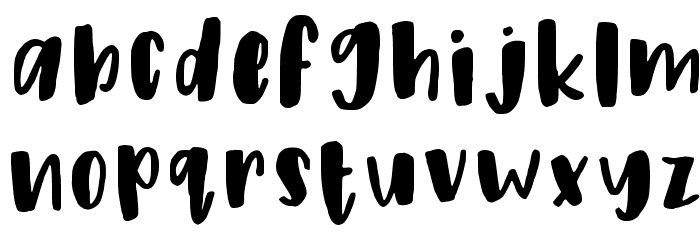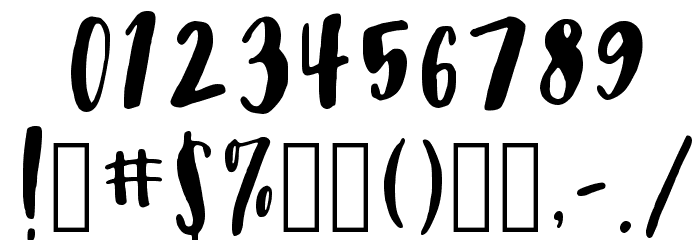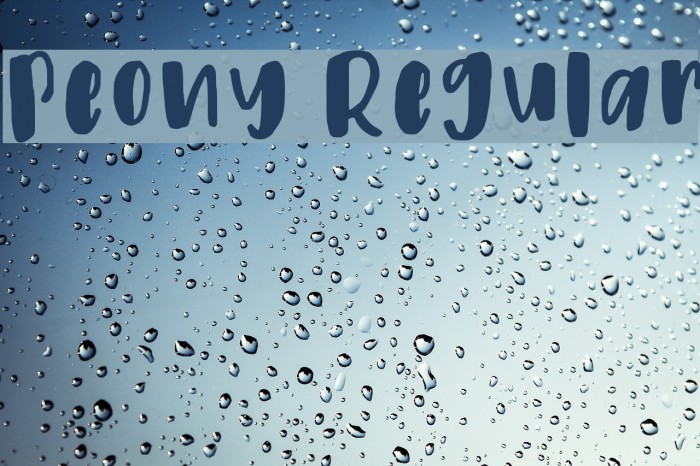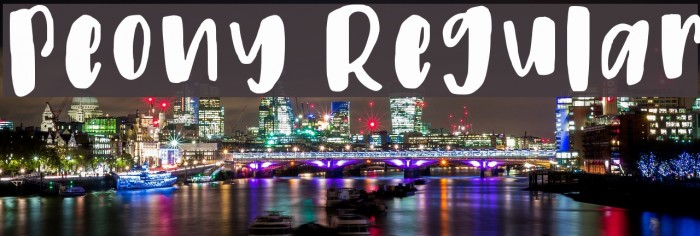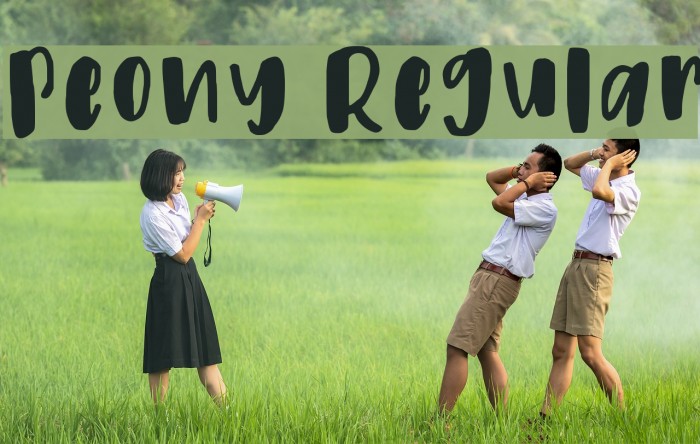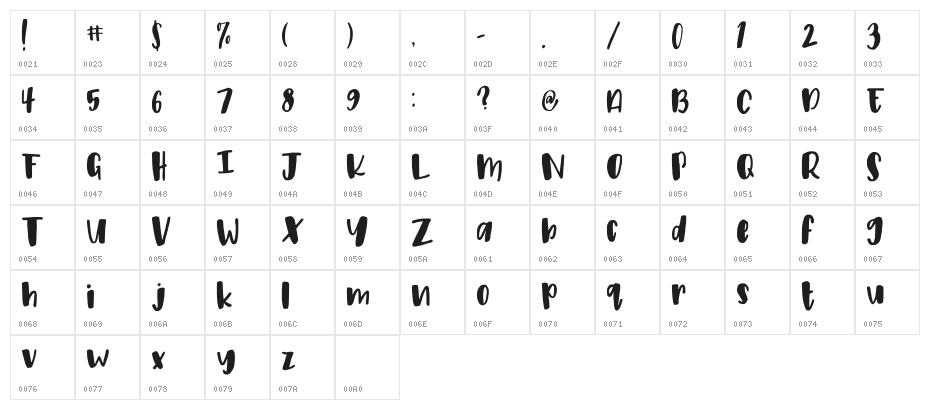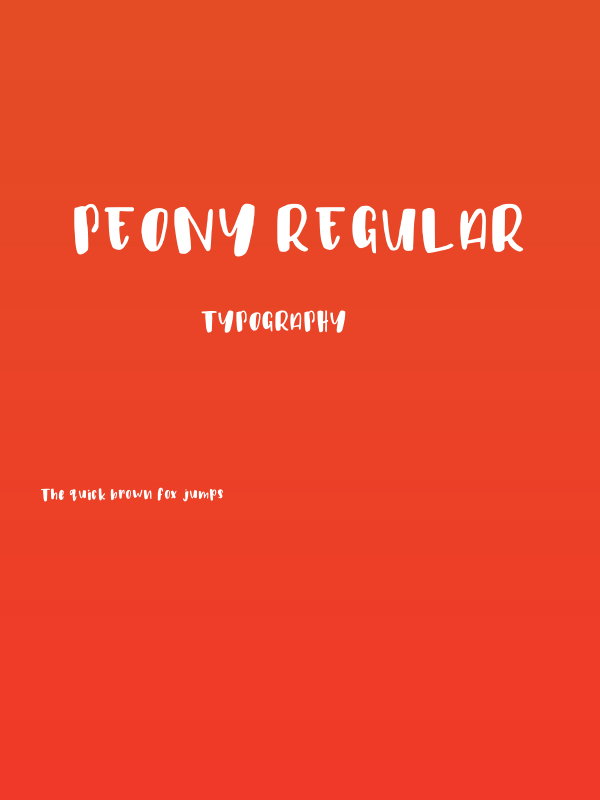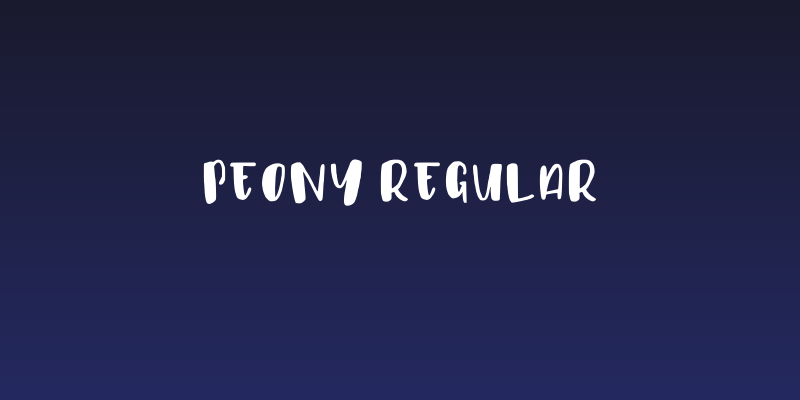
Peony Regular Font
This font features a bold and playful handwritten style, characterized by its thick strokes and smooth curves. The letters have a lively and dynamic appearance, with a slightly irregular baseline that adds to its casual charm. The uppercase letters are bold and rounded, while the lowercase letters maintain a consistent flow with a touch of whimsy. The numerals are clear and easy to read, matching the overall playful aesthetic. Special characters are well-integrated, maintaining the font's cohesive style. This font is perfect for projects that require a personal and friendly touch.
A bold, playful handwritten font with thick strokes and smooth curves.
- Proposed Projects: Ideal for greeting cards, invitations, posters, and branding that seeks a personal and friendly vibe.
- Overall Style: Playful, Casual
- Use Case: Headlines, Logos, Invitations